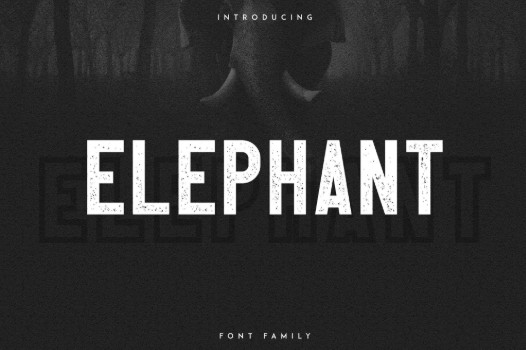
Introducing the font "Elephant" – a charismatic and confident choice for your design projects. This formidable and effective sans serif typeface comes with 6 fonts and multilingual support. It is a versatile font that looks great in both large and small sizes. Awesome, right? Check it out here: Sans Serif Font
The elephant is best for branding tasks, home-ware designs, product packaging, mag headers – or virtually as a stylish text overlay to any history photograph.